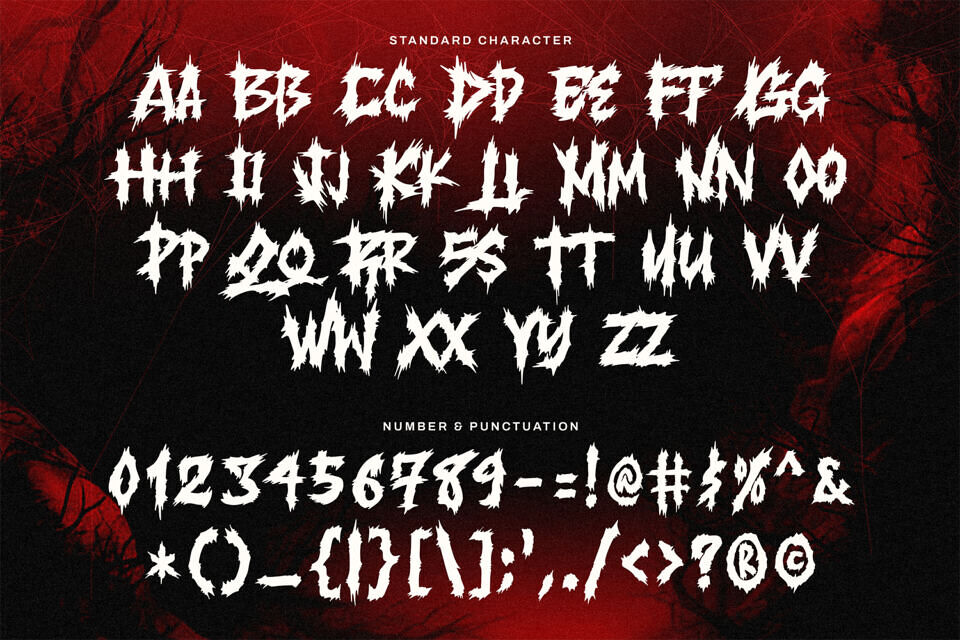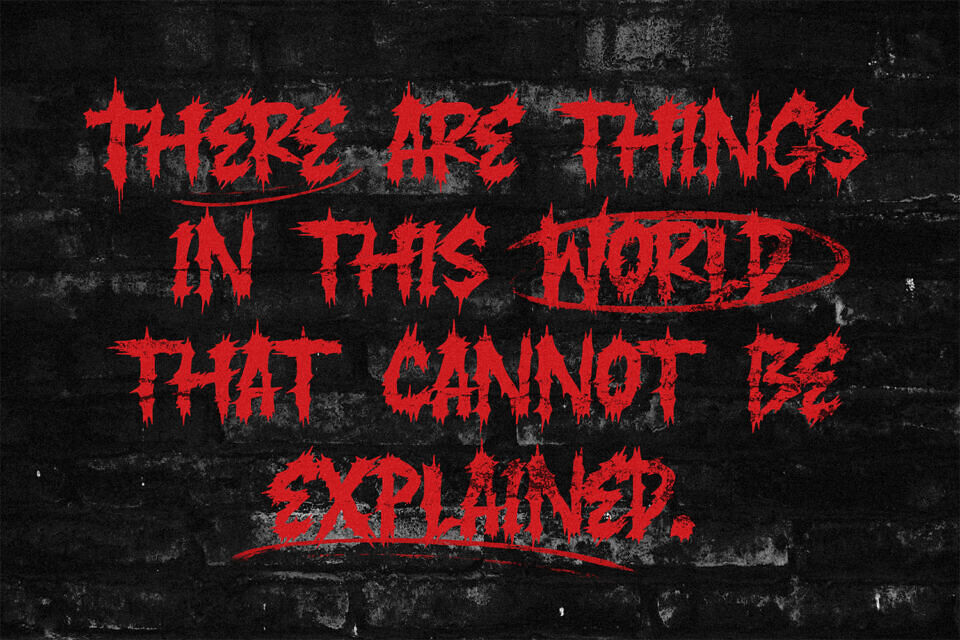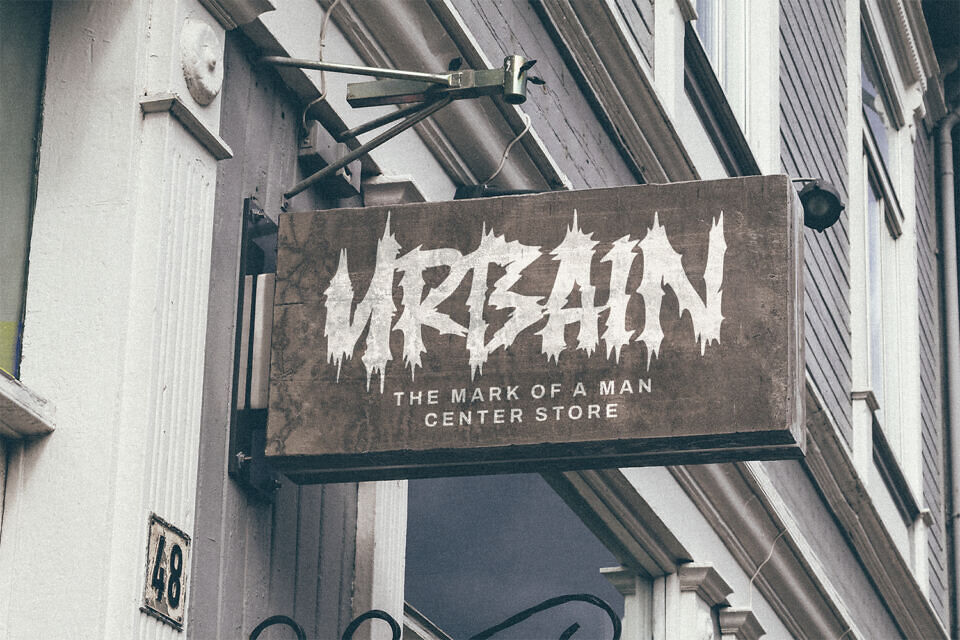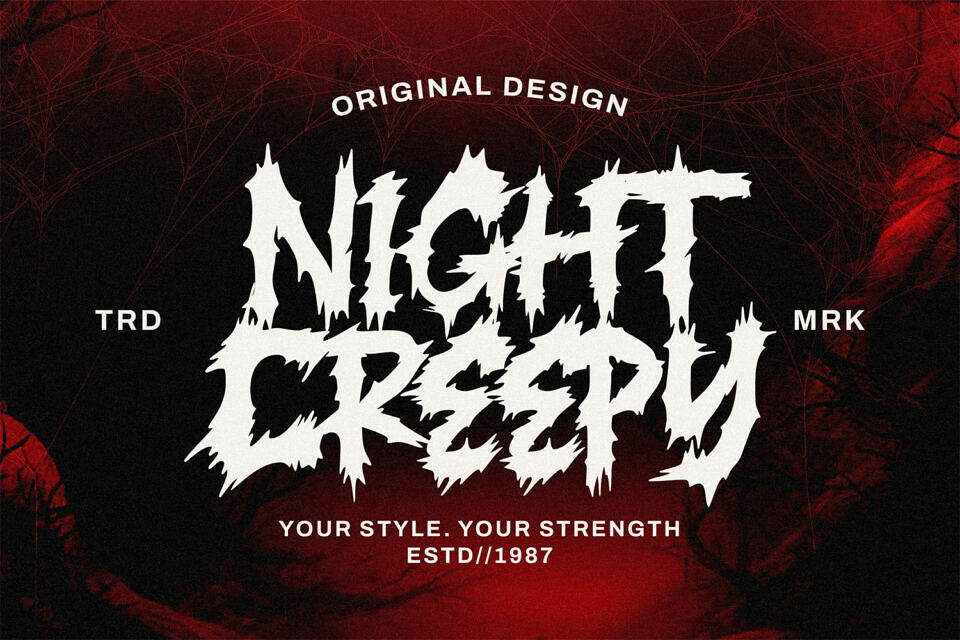
Room Number Font
Introducing Room Number, a brush font with raw, terrifying energy. Its rough strokes, scary vibe, and hand-drawn character create a haunting atmosphere that feels alive on the page.
Perfect for horror posters, Halloween designs, ghost stories, creepy logos, or anything with a chilling theme, Room Number Four delivers a bold and unsettling presence that grabs attention instantly.